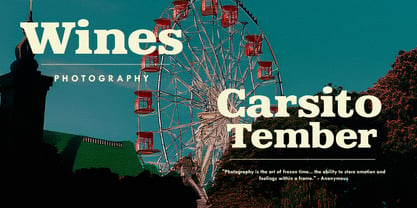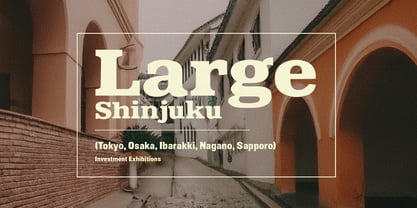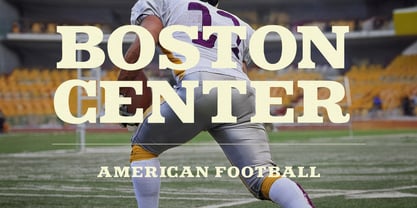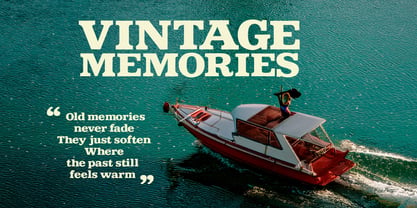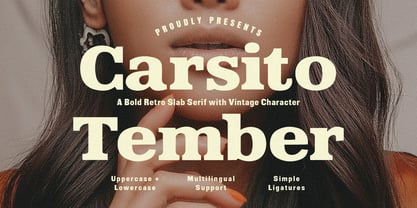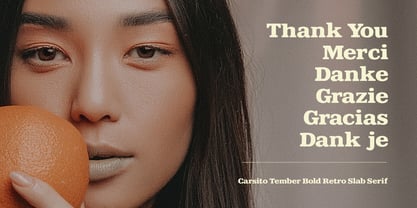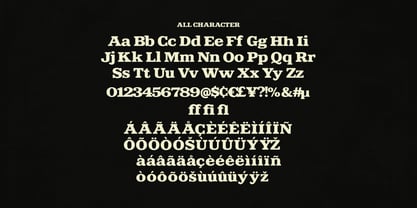
MC Carsito Tember
by Maulana Creative
The MC Carsito Tember Font Family was designed by Gilang Maulana and published by Maulana Creative. MC Carsito Tember contains 1 styles. More about this family
Carsito Tember is a powerful and expressive slab serif font designed to bridge the gap between classic vintage aesthetics and modern bold design. Characterized by its heavy weighted strokes and distinct blocky serifs, this typeface exudes a sense of confidence and timelessness. It is perfectly suited for high-impact displays, including retro-style posters, branding for artisan products, editorial headlines, and athletic-inspired designs. With its inclusive multilingual support, simple ligatures, and both uppercase and lowercase sets, Carsito Tember offers designers a versatile tool to create "vintage memories" with a contemporary edge.
Designers: Gilang Maulana
Foundry: Maulana Creative